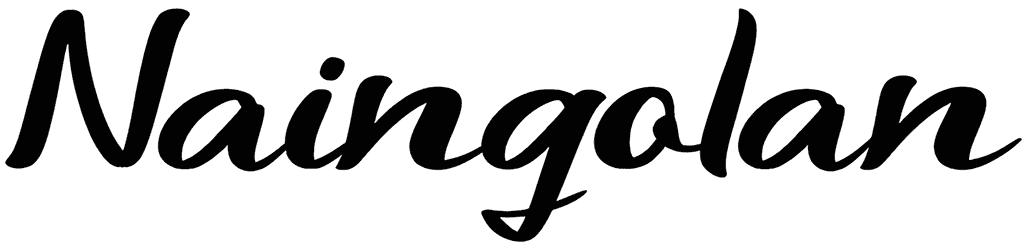
Naingolan Font
Naingolan is a fantastic script font that seems entertaining to the viewers. This handwritten font has an elegant style and catches your eye at first glimpse.
You may use Naingolan for various cases, such as invitation cards, business cards, and book covers. This modern font’s letters are bold with soft edges, creating a friendly feeling. Besides, they have thin, extended tails that seem memorable to your audience, so give them a chance.